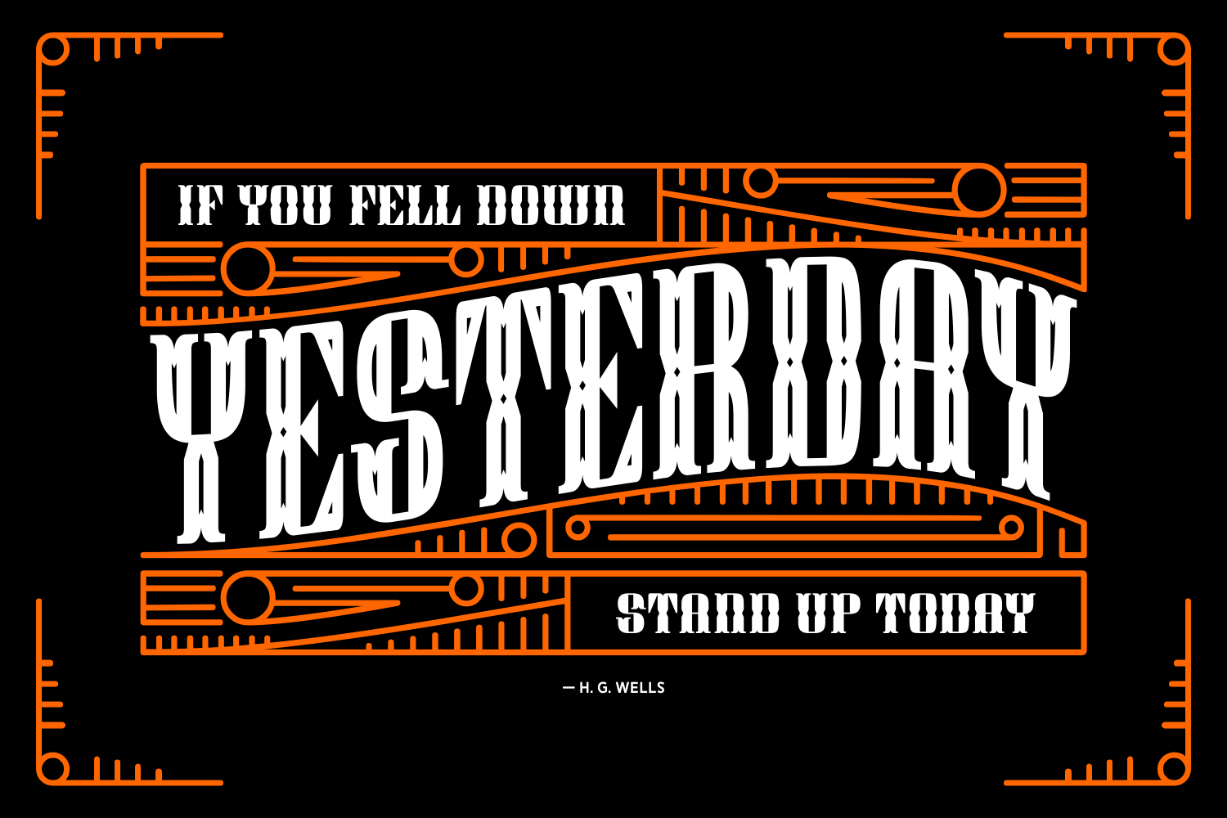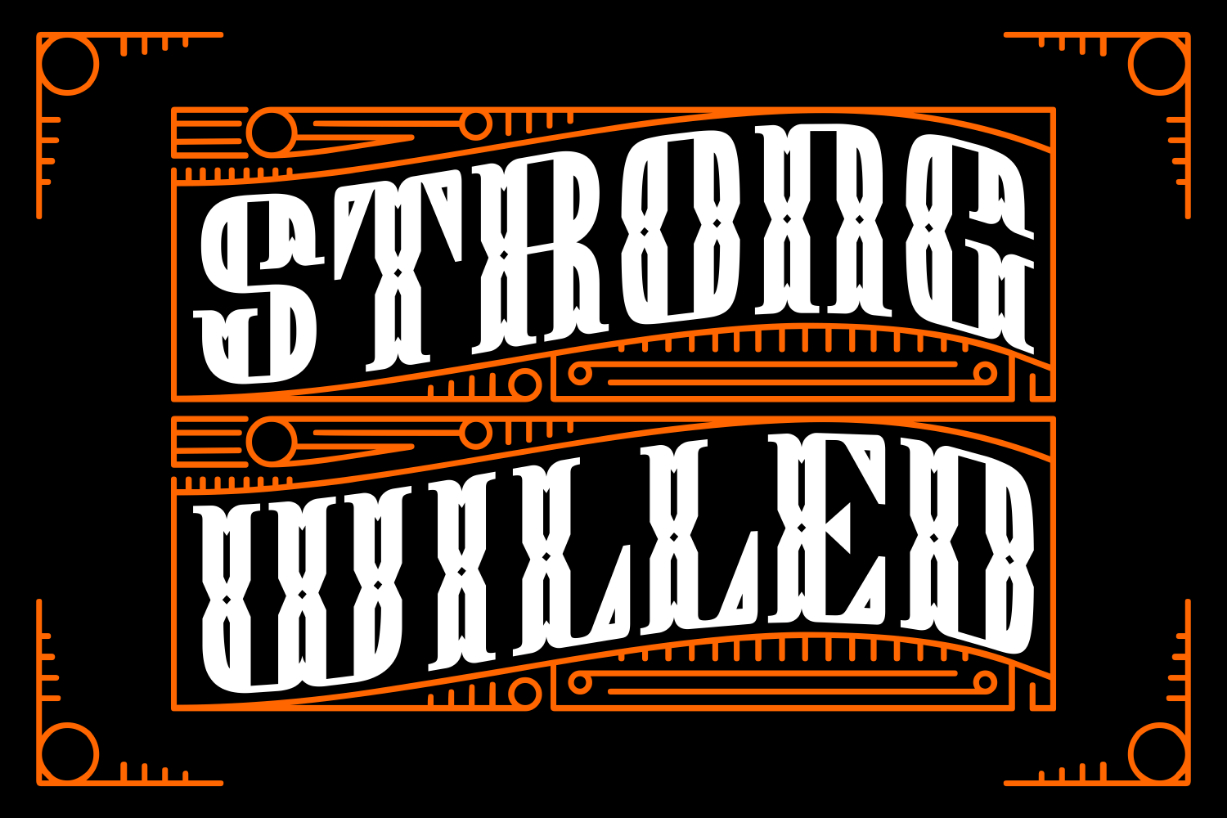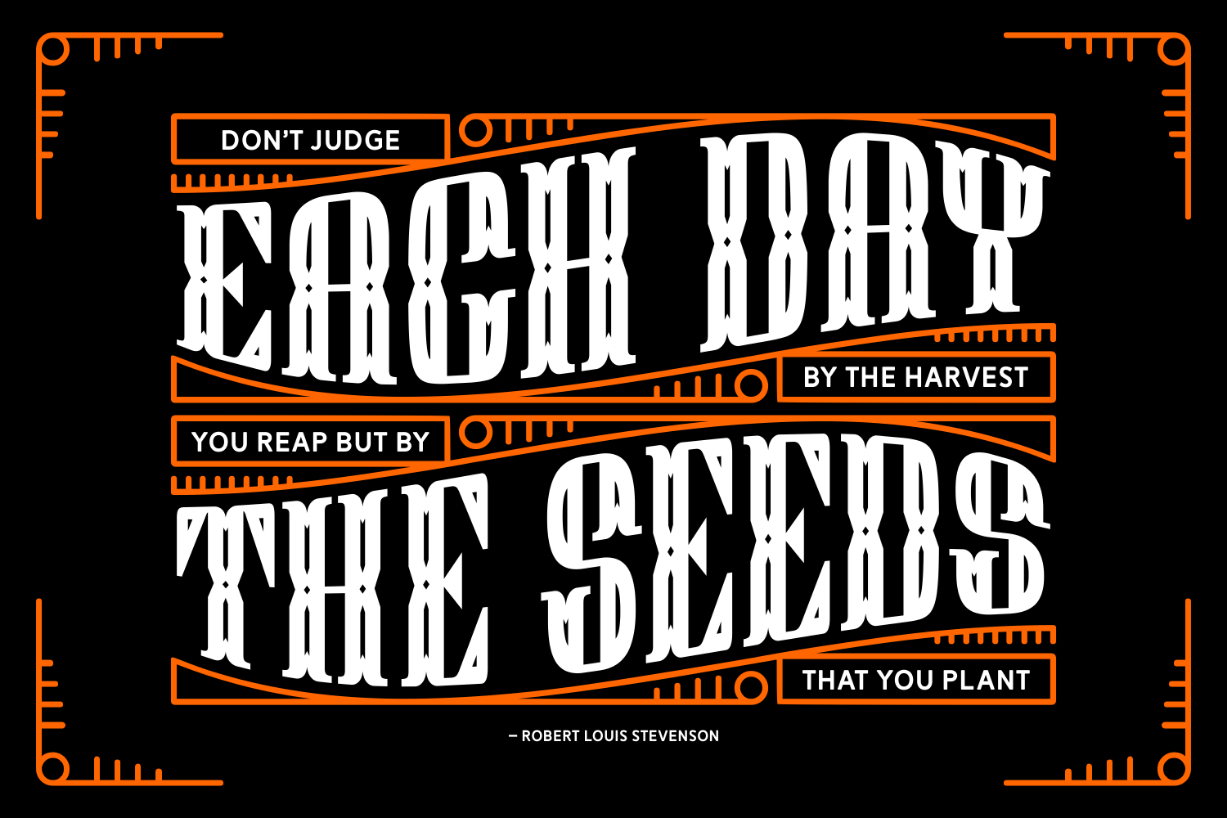
About Vintage Stories Font
Vintage Stories is a stunning blackletter font that combines retro charm with modern elegance. With intricate details and bold lines, this font captures the essence of old-world craftsmanship while remaining sleek and stylish. Perfect for creating vintage logos, signage, and branding materials with a touch of sophistication.